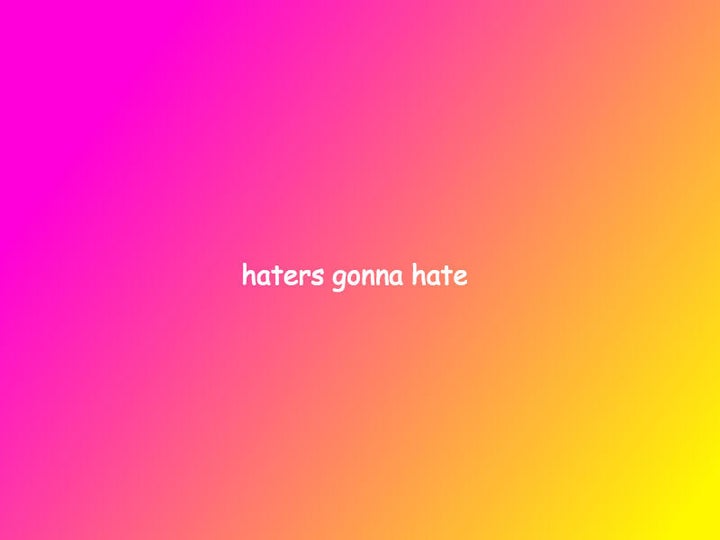
Unanimous opinions are hard to come by, but there are a few value judgments that come close: Puppies are good, toothaches are bad, and Comic Sans is the worst font ever. Worse even than Curlz and Papyrus.
Bubbly and childlike, it was originally created to imitate the text of comic books, in an attempt to make computers appealing to kids. At least that’s Vincent Connare’s explanation. A typographer who worked for Microsoft in the ’90s, he’s the man behind Comic Sans. Today, in The Guardian, he discussed the making of the font.
Connare explains:
One program was called Microsoft Bob, which was designed to make computers more accessible to children. I booted it up and out walked this cartoon dog, talking with a speech bubble in Times New Roman. Dogs don’t talk in Times New Roman! Conceptually, it made no sense.
So, he started flipping through comic books like “Watchmen” and “The Dark Knight Returns” for inspiration. He tried to capture the spirit of their lettering and found that he enjoyed ignoring the conventions of font-making. The resulting typeface caught on in the Microsoft office, mostly used for fun contexts like birthday parties.
Soon after Comic Sans was inducted into Microsoft Word’s font suite, a band of decriers approached Connare about starting a group devoted to banning the typeface. Connare ― who says he’s only used Comic Sans once, and believes the font fulfills its purpose of appealing to young typers ― gave them the go-ahead, describing the backlash as simultaneously “silly.”
“Type should do exactly what it’s intended to do,” he added The Guardian. “That’s why I’m proud of Comic Sans.”
(Microsoft program manager Tom Stevens had his own take in The Guardian piece: “The level of hatred, was just amazing ― and quite frankly funny. I couldn’t believe people could be so worked up over something as simple as a font. It’s almost an anti-technology typeface: very casual, very welcoming.”)
The font’s creator isn’t its only defender; last month The Establishment reported that hating Comic Sans is ableist. For some readers with dyslexia, its unique characters make differentiating between letters easier, and in fact, Comic Sans is among a handful of fonts recommended by a number of dyslexia organizations.
So, before you write it off completely, remember there’s no one-font-fits-all solution. For some, the jaunty angles of Comic Sans are an aid, and for others, it’s simply a playful alternative.